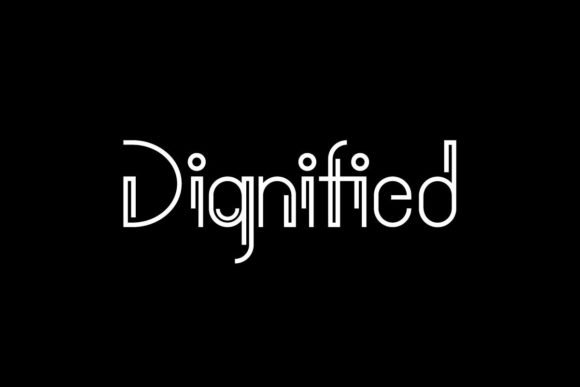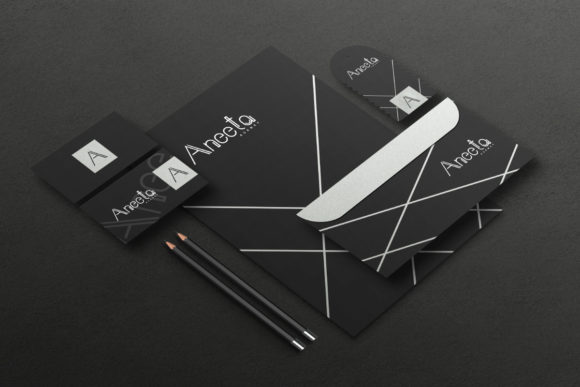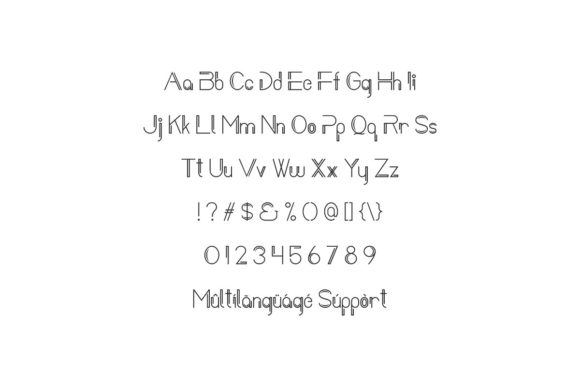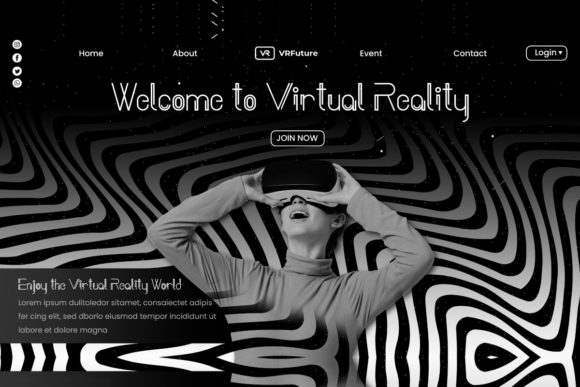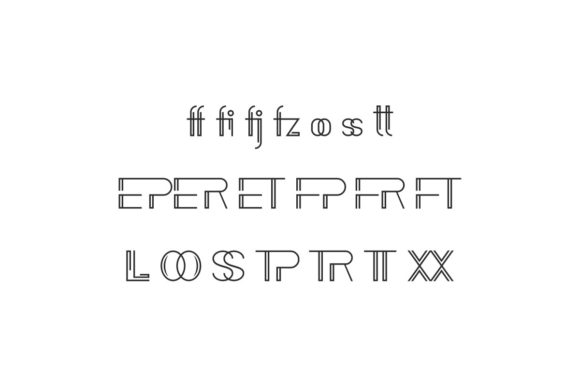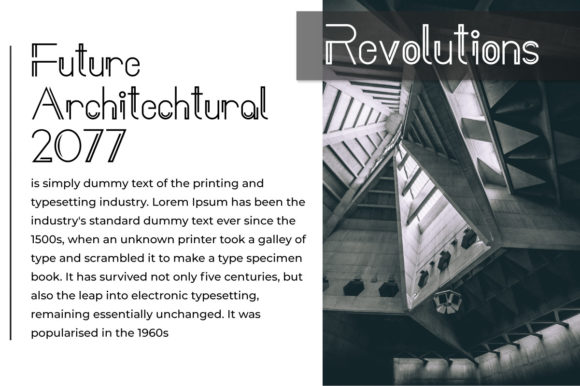
The Dignified Font: Elevating Your Designs with Versatility and Style
I’ll never forget the moment I stumbled upon the perfect font for a client’s branding project. It was like a lightbulb went off – the design instantly elevated, and I knew I’d found the one. For me, that font was Dignified, a modern and unique display font that has become a staple in my design toolkit. In this article, I’ll share my experience with Dignified, its features, and how to make the most of it in various design platforms.
An Honest Review of Dignified Font
So, what makes Dignified so special? Let’s dive into the good stuff and a few quirks I’ve encountered.
What I Love About Dignified Font
- ✨ Versatility: Dignified is a display font that can be used across various design projects, from logos and product packaging to magazine titles, books, and apparel designs.
- ✅ Unique Style: Its modern and distinctive look sets it apart from more traditional fonts, making it perfect for designers looking to create a bold statement.
- 💡 Easy to Read: Despite its uniqueness, Dignified remains surprisingly legible, even at smaller sizes, which is a huge plus for designers.
While Dignified is an excellent font, there are a few things to keep in mind:
- ⚠️ Limited Use in Body Text: Due to its display nature, Dignified might not be the best choice for lengthy body text. It’s ideal for headings and titles.
- 🤔 Requires Attention to Kerning: As with any font, especially unique ones, paying attention to kerning is crucial to ensure it looks its best.
- Take advantage of stylistic alternates and swashes to add more character to your text.
The Backstory of Dignified Font
Dignified was created with the goal of providing designers with a versatile, modern font that could be used across a variety of projects. Its designer aimed to craft a font that exudes elegance and sophistication while remaining approachable and easy to read. Although the actual design process and inspiration might be shrouded in mystery, the end result is undeniable – a font that adds a touch of class to any design.
Q: Is Dignified suitable for body text?
A: While Dignified can be used for short paragraphs, it’s primarily designed as a display font. For longer body text, consider a more traditional, serif font for better readability.
Q: Does Dignified support multiple languages?
A: Dignified likely supports a range of languages, but the extent of language support can depend on the specific version of the font and its character set. It’s best to check with the font designer or documentation for specifics.
In conclusion, Dignified is a powerful addition to any designer’s toolkit. Its unique blend of modernity and elegance makes it perfect for a wide range of projects. By understanding its strengths and limitations and learning how to utilize its features across different platforms, you can elevate your designs and make a lasting impression.